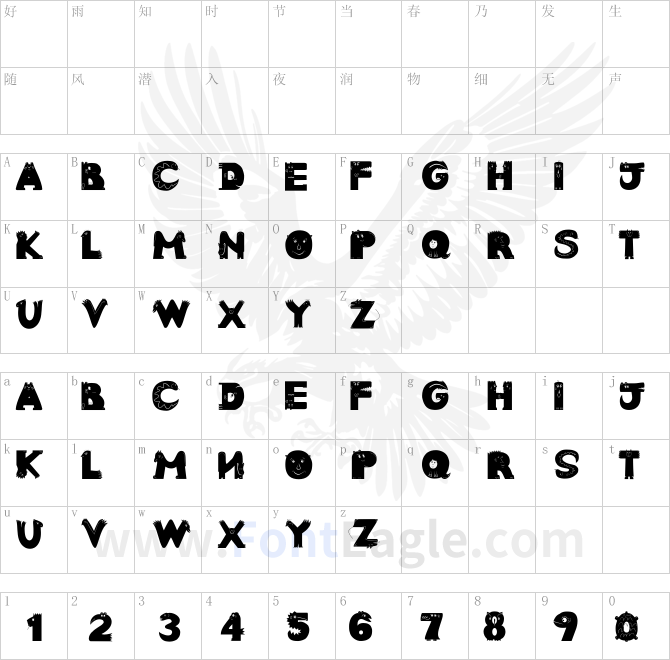
AnimalTypeFaces Regular.ttf Base Font Information
- Font name:AnimalTypeFaces
- Font Subfamily ID:AnimalTypeFaces
- Font Full Name:AnimalTypeFaces
- Font Version:1.0 2004-08-19
- Postscript:AnimalTypeFaces
- Font Copyright:Copyright (c) M Klein August 2004